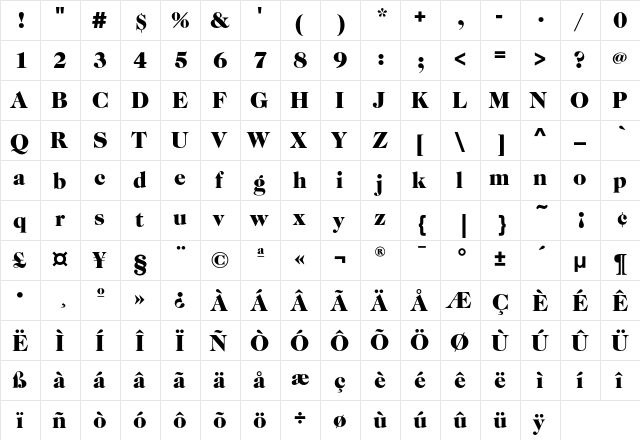
CaslonNo224EF-Black Regular Font Preview
CaslonNo224EF-Black Regular
Design Context for CaslonNo224EF-Black Typeface
CaslonNo224EF-Black offers clean, dependable letterforms without strong stylistic allegiance, making it a practical choice for designers who need flexibility.